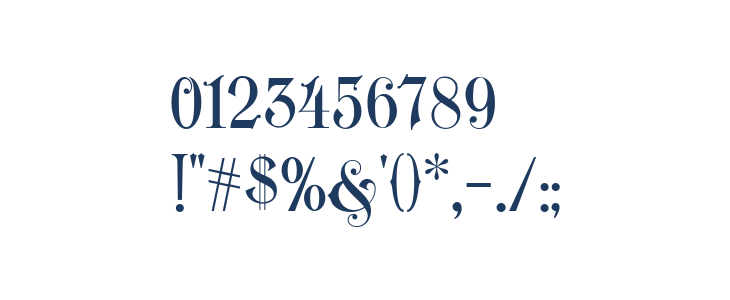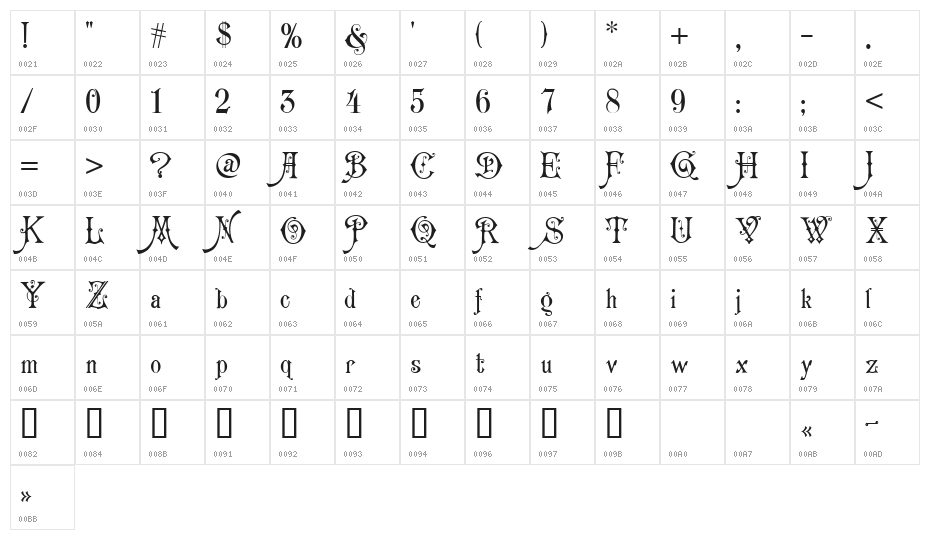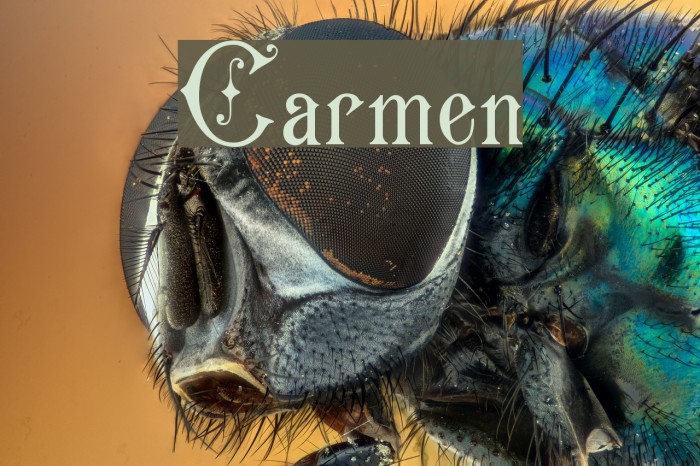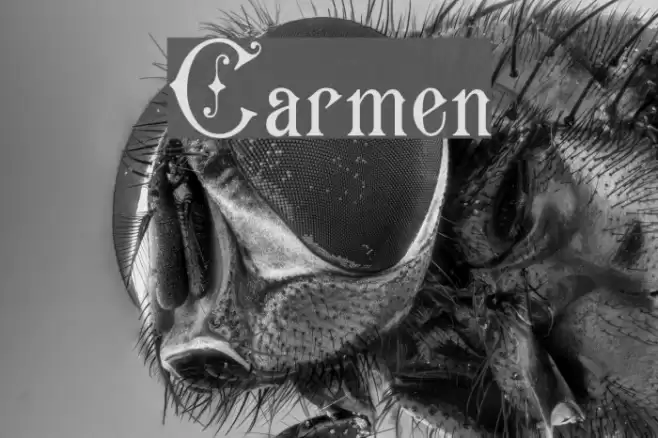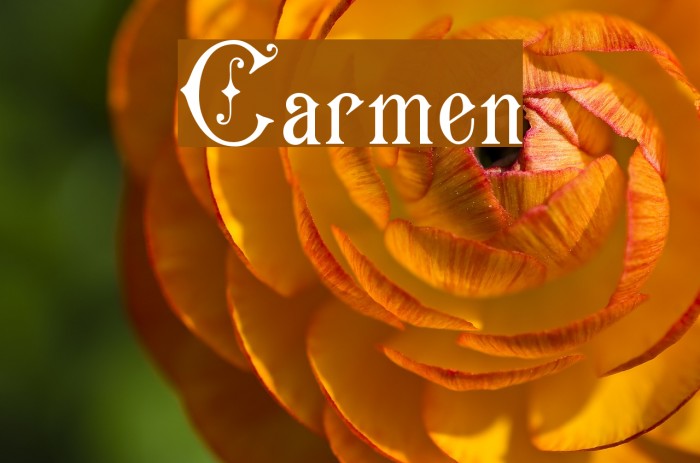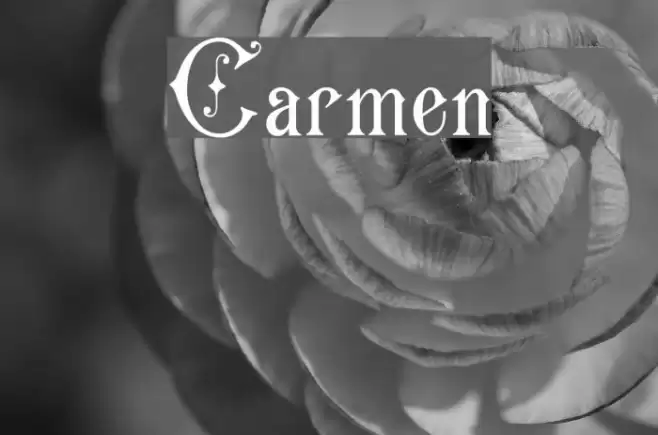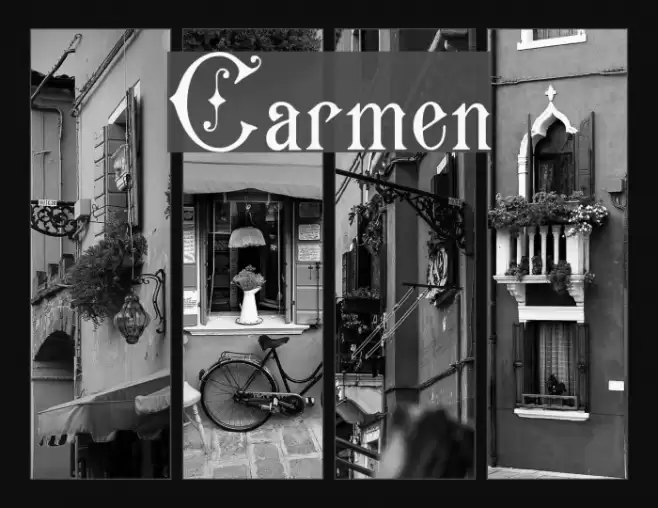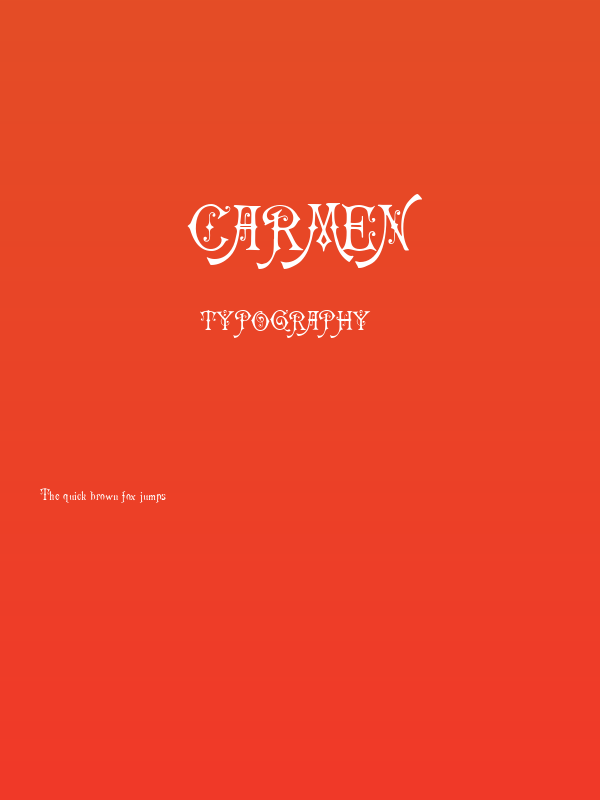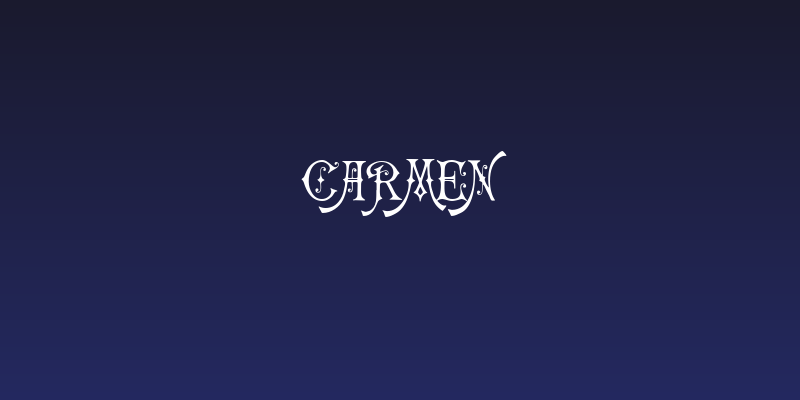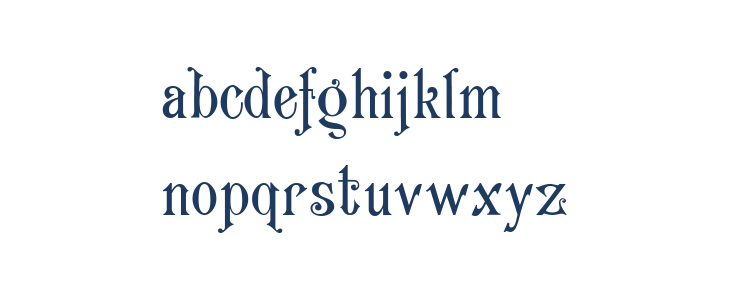
Carmen Font
Carmen Description
This font features an intricate and decorative style reminiscent of traditional blackletter typography. The uppercase letters are adorned with elaborate flourishes and sharp angles, creating a sense of elegance and historical charm. The lowercase letters maintain a similar aesthetic, with a slightly more subdued design to ensure readability. Numbers and special characters are crafted with the same attention to detail, making them suitable for a variety of creative applications. The overall appearance is bold and striking, with a medium contrast in stroke thickness that enhances its visual impact.
| Use Case | Headlines, Logos, Decorative text |
| Proposed Projects | Ideal for vintage-themed designs, invitations, posters, and branding that require a touch of elegance and historical flair. |